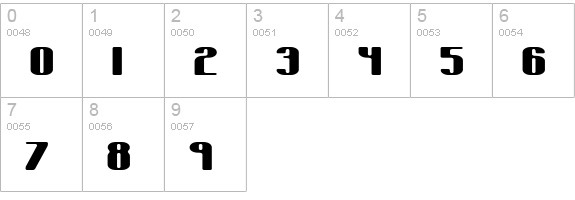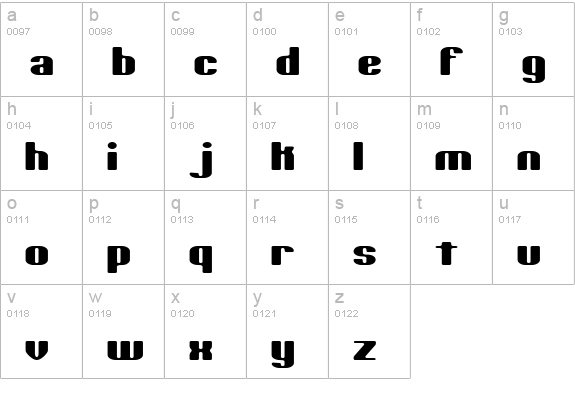
Typesource Extol S BRK Font Details
Typesource Extol S BRK is a remarkable font that exudes elegance and sophistication. Its sleek and modern design is perfect for a wide range of projects, from branding and advertising to editorial and web design. This font features clean lines and distinct letterforms, making it highly legible and visually appealing. What sets Typesource Extol S BRK apart is not only its impeccable craftsmanship, but also the fact that it is completely free. Yes, you read that right – this stunning font is freely available to download at FontsMarket.com. This means that you can enhance your creative endeavors without breaking the bank. Whether you're a professional designer or a casual enthusiast, Typesource Extol S BRK offers endless possibilities. Its versatility allows it to seamlessly adapt to any project, adding a touch of sophistication and professionalism. The font's stylish yet understated appearance instantly elevates any design, making it stand out from the crowd. With its freely accessible nature, Typesource Extol S BRK opens up a world of creativity for designers and artists alike. Gone are the days of compromising quality for affordability. Now, you can have both. It's time to take your projects to the next level with this exceptional font. Download Typesource Extol S BRK for free at FontsMarket.com and unlock the potential to create stunning and impactful designs. Don't miss out on this incredible opportunity to elevate your work and leave a lasting impression on your audience. Embrace the elegance and versatility of Typesource Extol S BRK today.